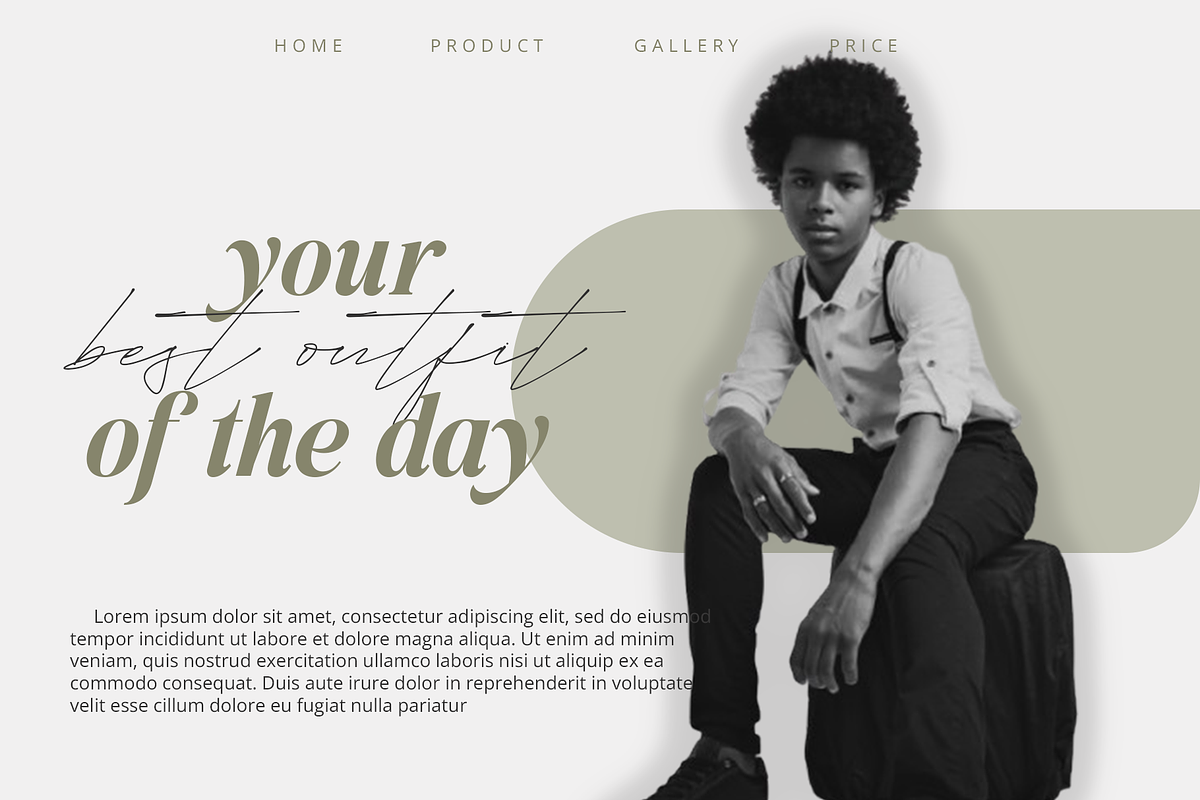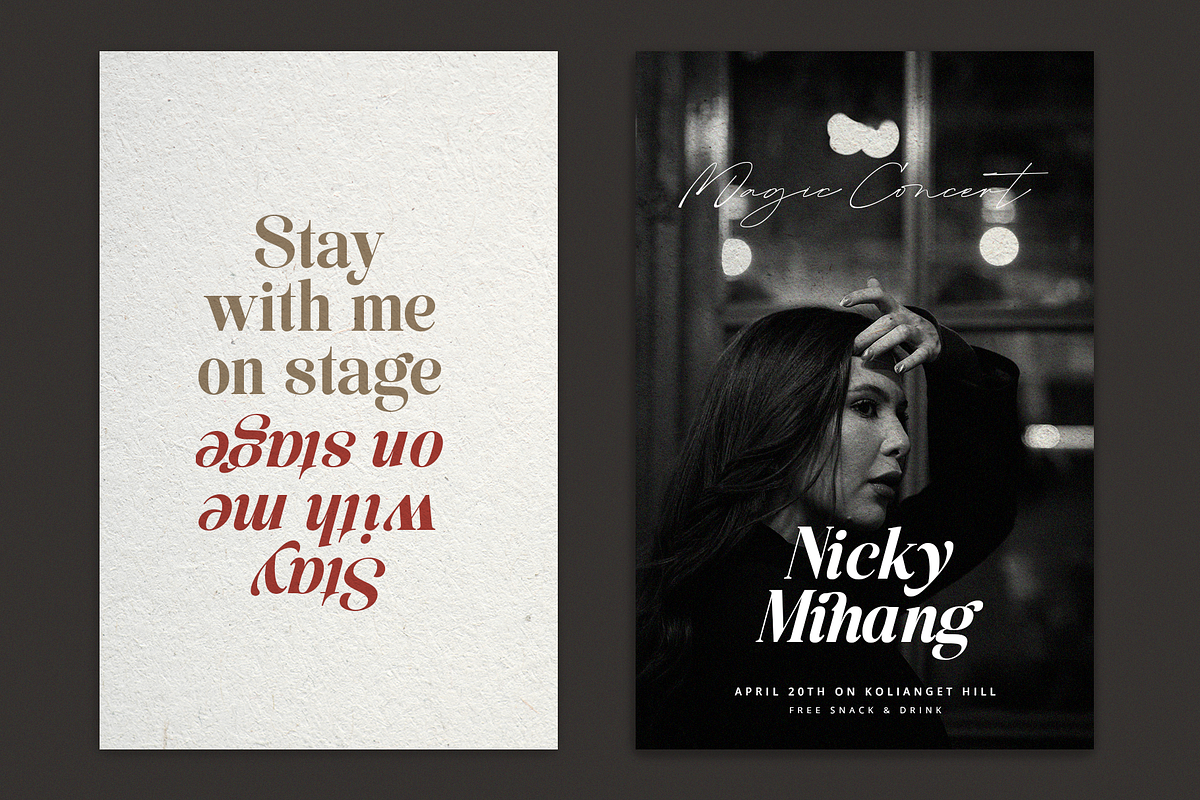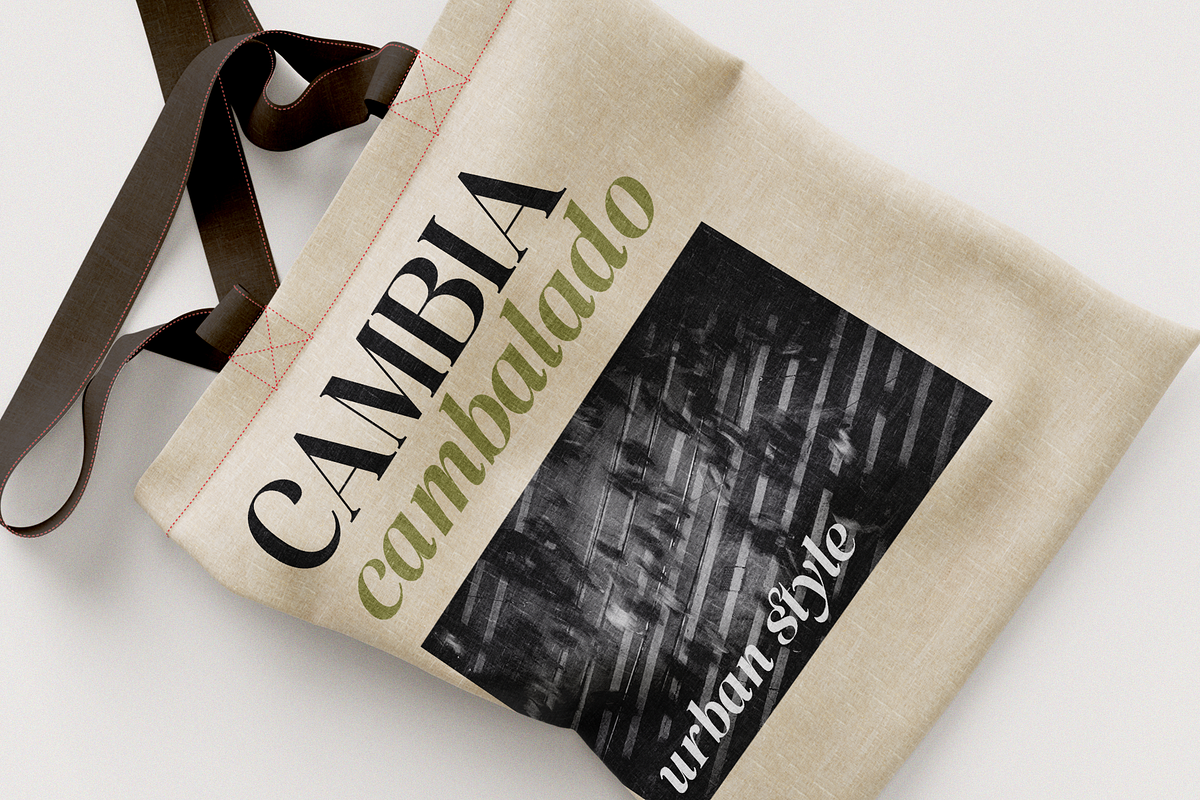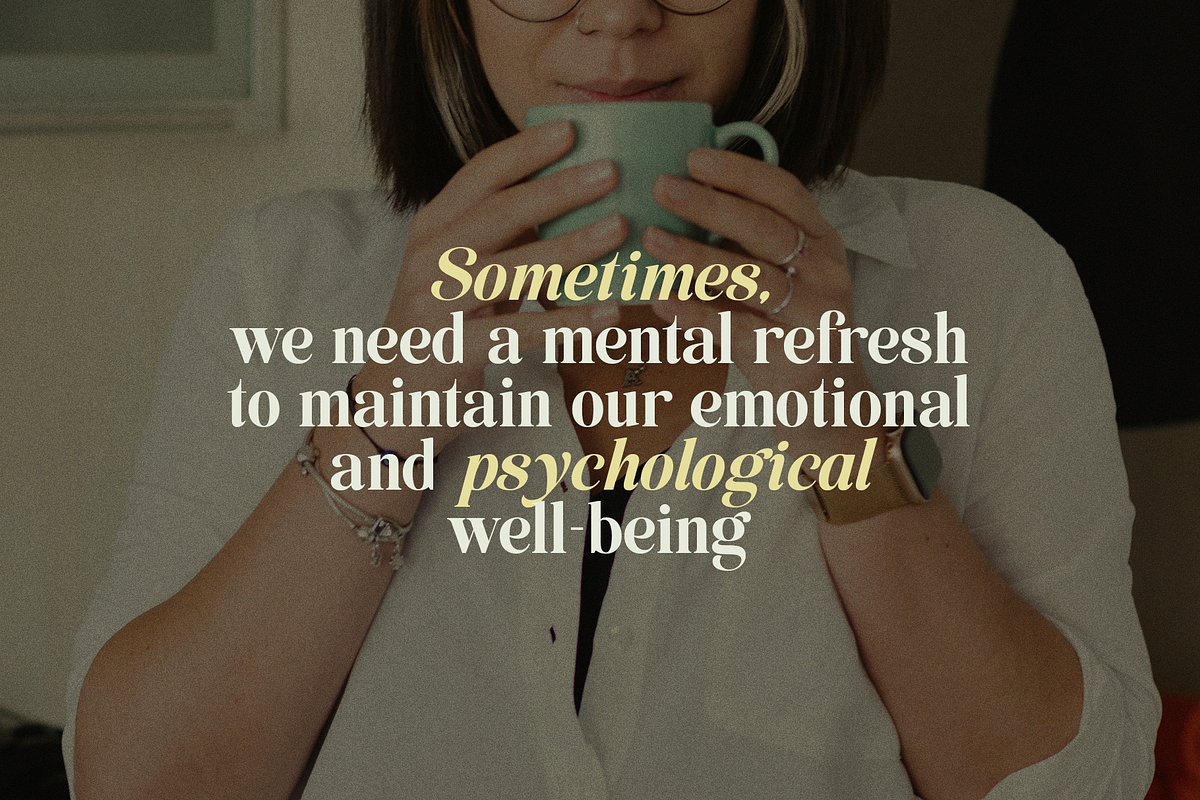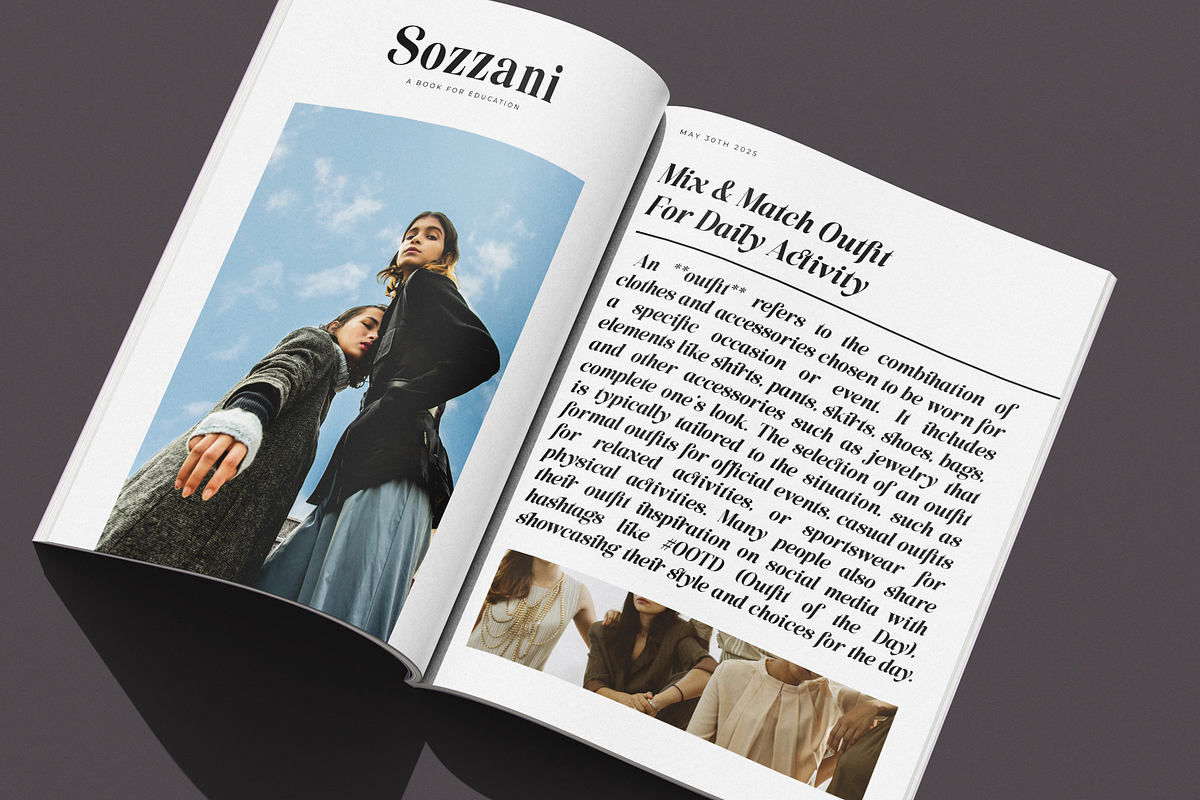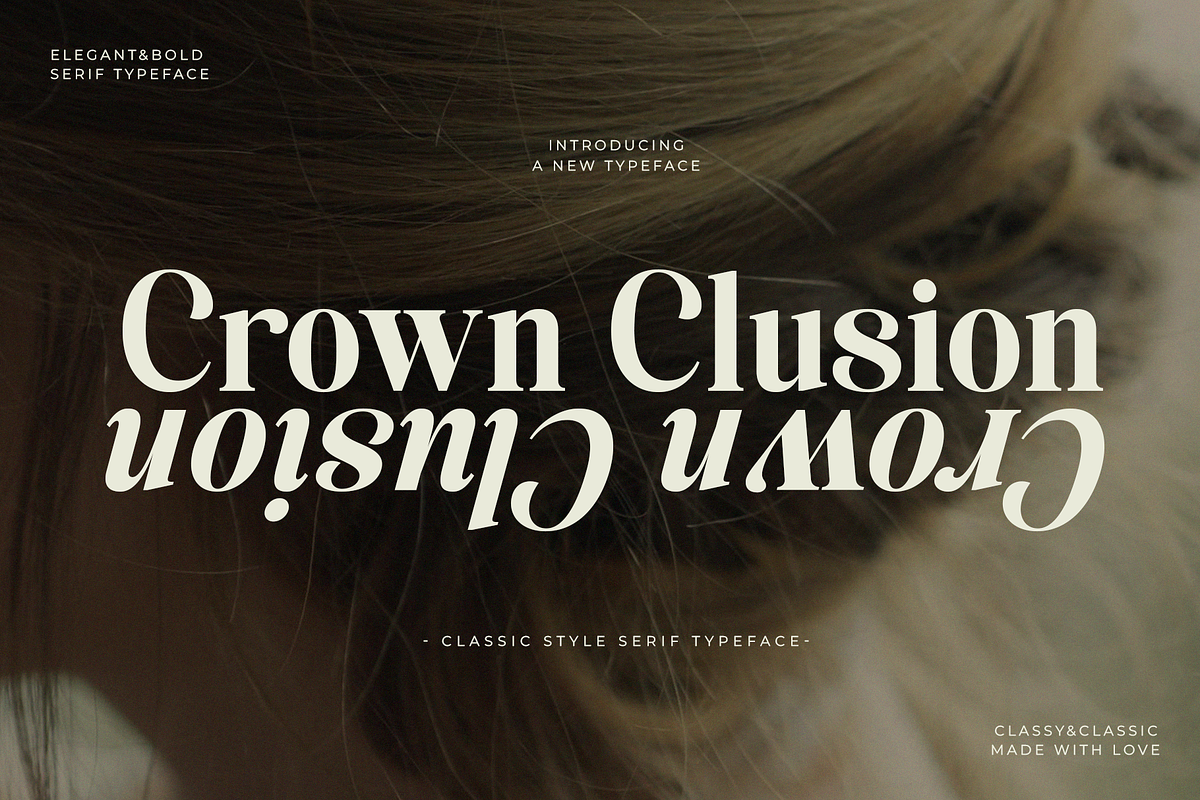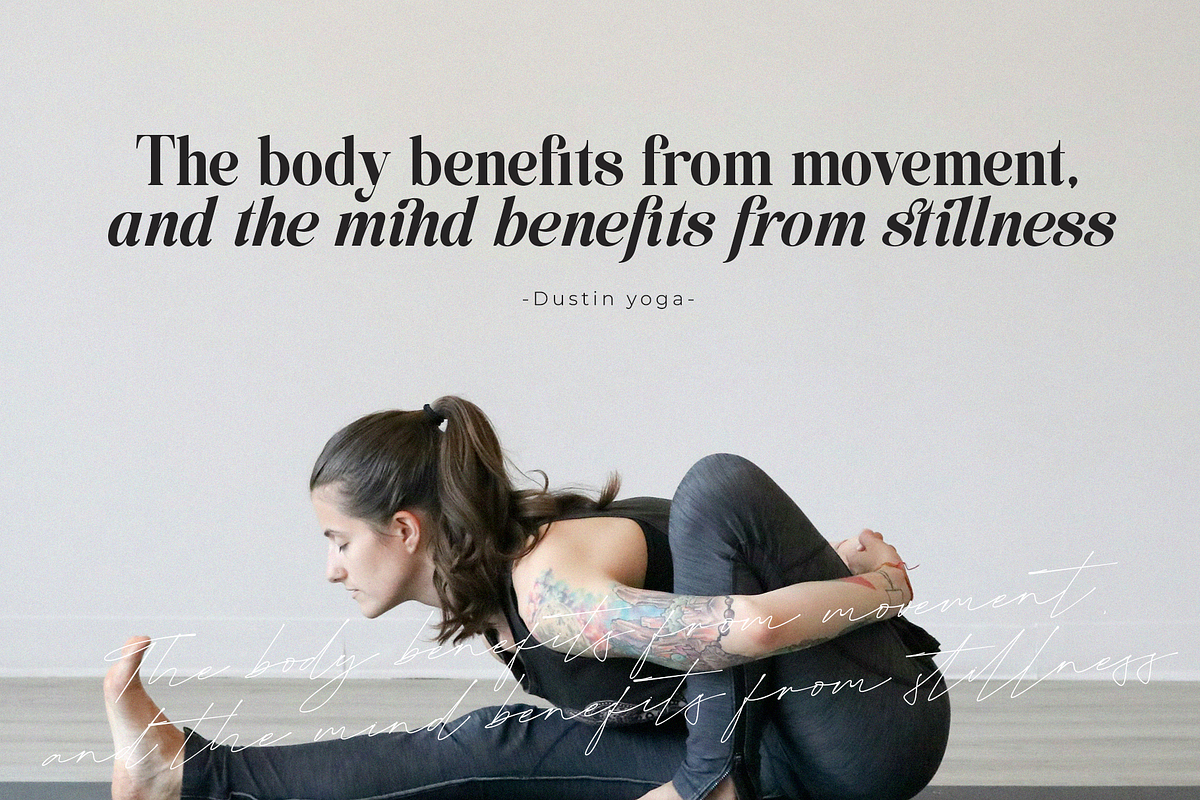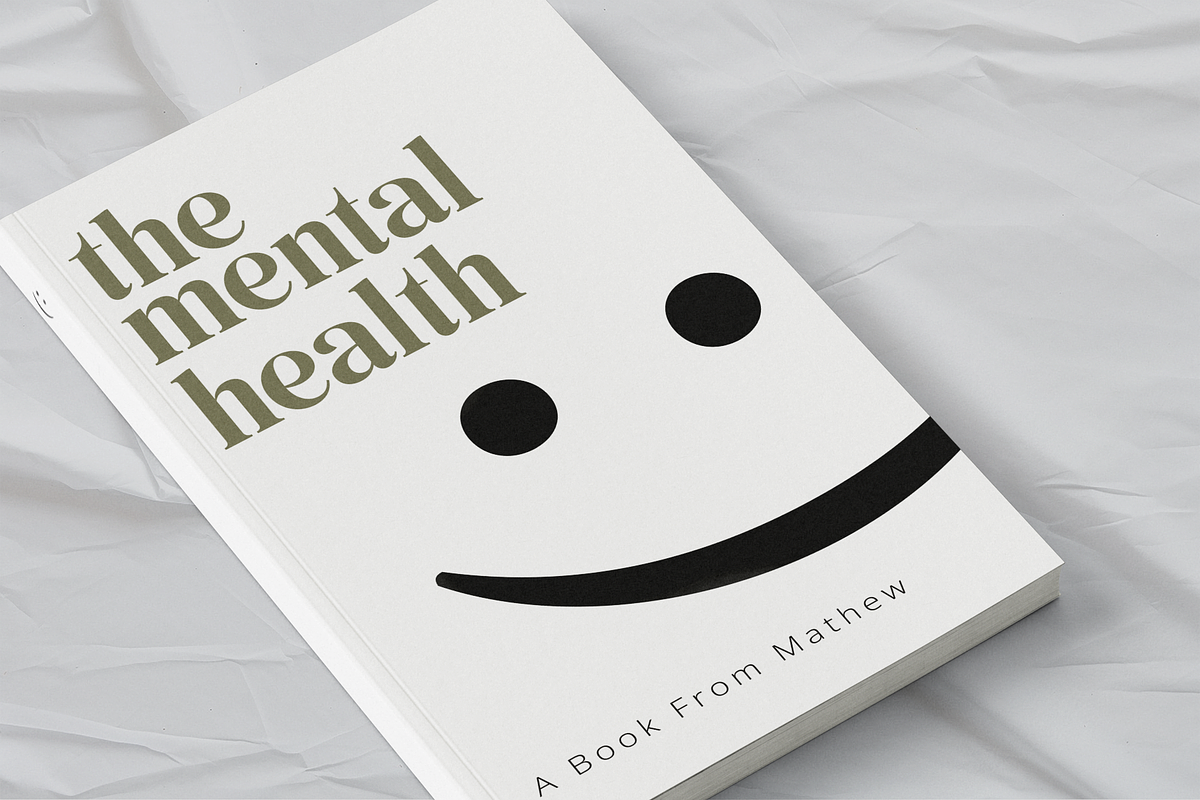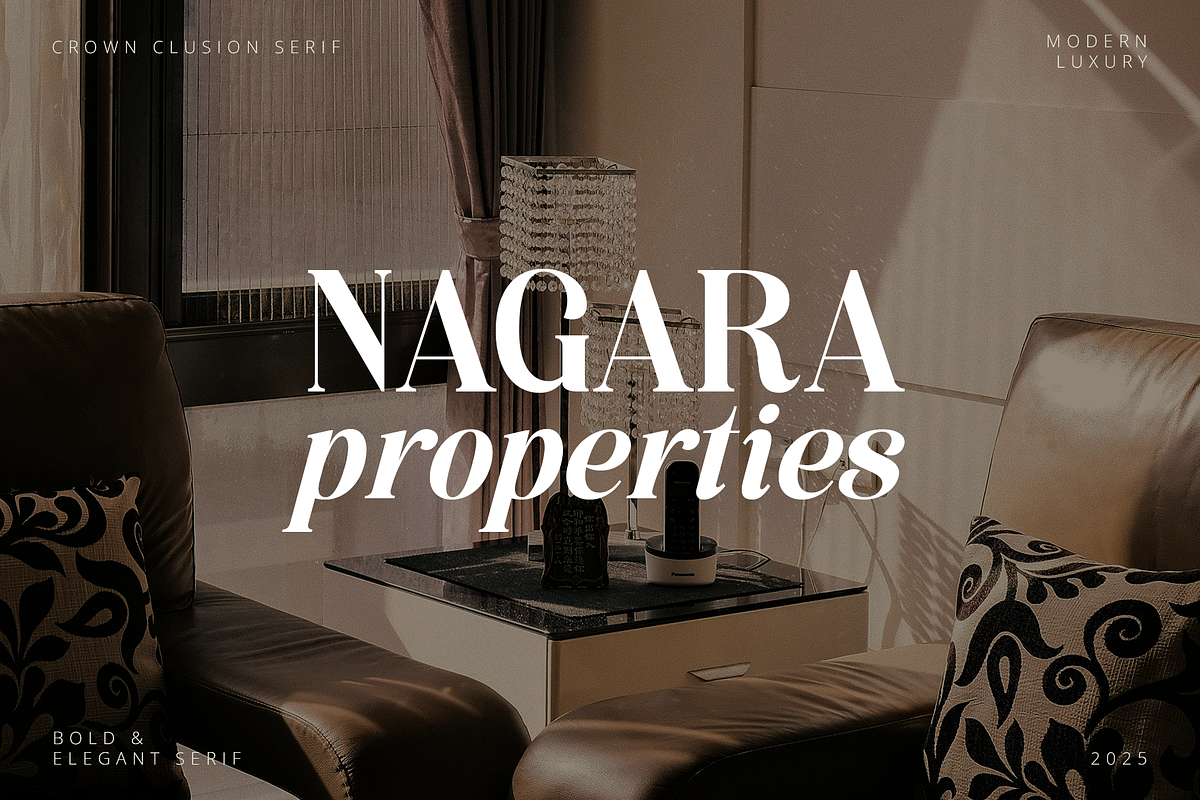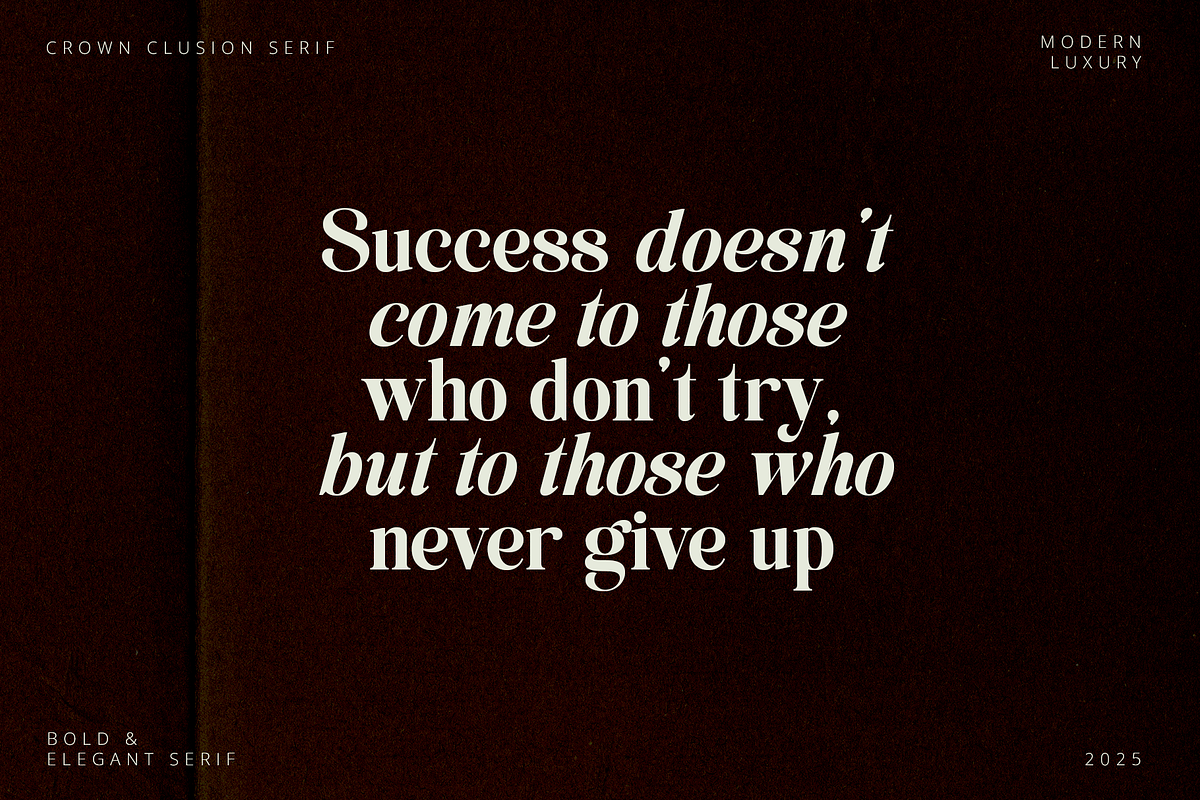
Crown Clusion Serif
The Crown Clusion font is a serif typeface designed with a classic and elegant style, offering a luxurious and sophisticated vibe to your design projects. The delicate and sharp letterforms give it a timeless quality, creating a formal and professional impression. The elegance of its serifs adds a prestigious touch, making it perfect for designs that require a strong and refined visual element.
One of the standout features of Crown Clusion is its italic variation. The italic style adds a dynamic flair without compromising the elegance that defines the font. When used, the italic version can emphasize specific words or phrases, adding depth to your design and creating visually appealing contrast. The combination of the solid structure of the serif font with the fluidity of the italic style provides versatility, making it ideal for a wide range of applications such as logos, business cards, invitations, and more formal branding materials.
With Crown Clusion, your client’s design projects will appear more sophisticated and polished, leaving a prestigious impression that aligns perfectly with the brand image they wish to convey.